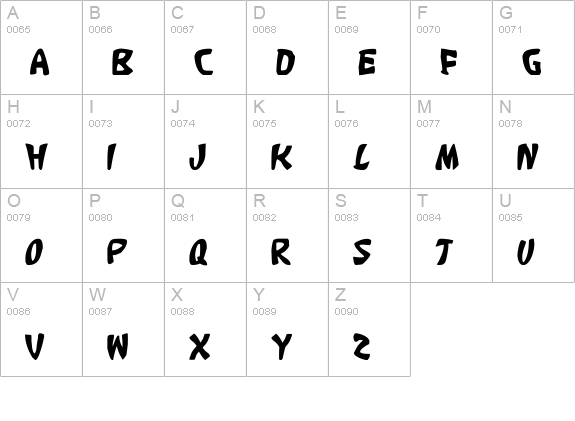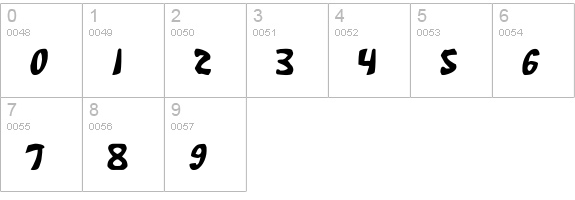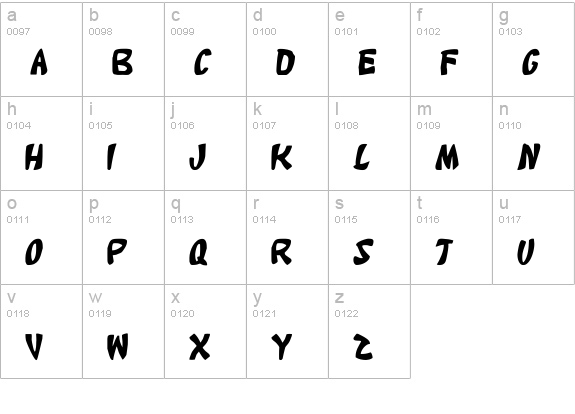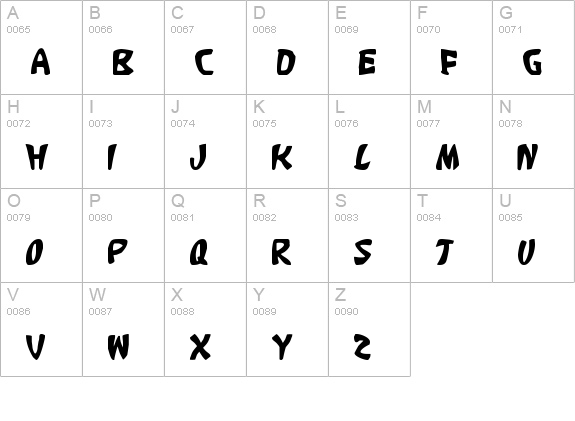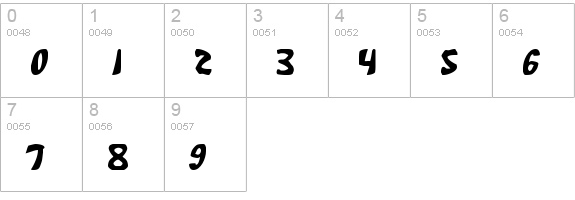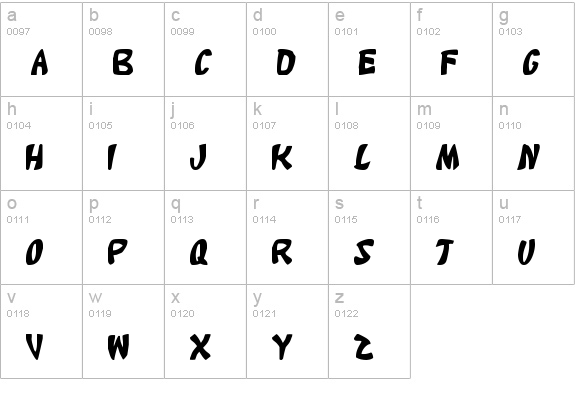
Katana Font Details
Introducing Katana font, a stunning display typeface that embodies the power and elegance of a traditional Japanese sword. With its sharp edges and graceful curves, this font captures the essence of the katana's deadly precision and timeless beauty. Katana font is meticulously crafted with attention to detail, ensuring that each letter is perfectly balanced and visually striking. Its clean lines and bold strokes make it ideal for headlines, logos, and branding projects that require a touch of sophistication and strength. What sets Katana font apart is not only its impeccable design, but also its accessibility. This remarkable font is available to everyone, completely free of charge. Whether you're a professional designer or a hobbyist enthusiast, you can now wield the power of Katana font in your creative endeavors without breaking the bank. To make it even more convenient, Katana font can be easily downloaded at FontsMarket.com. This user-friendly platform offers a vast collection of fonts, and Katana font is proudly among them. With just a few clicks, you can access this exceptional typeface and elevate your designs to a whole new level. Unleash the artistry within you and embrace the captivating allure of Katana font. Its versatility and timeless appeal will leave a lasting impression on any project, making it the perfect choice for designers who seek a font that effortlessly combines both elegance and power. Download Katana font for free at FontsMarket.com and let your creativity flourish.